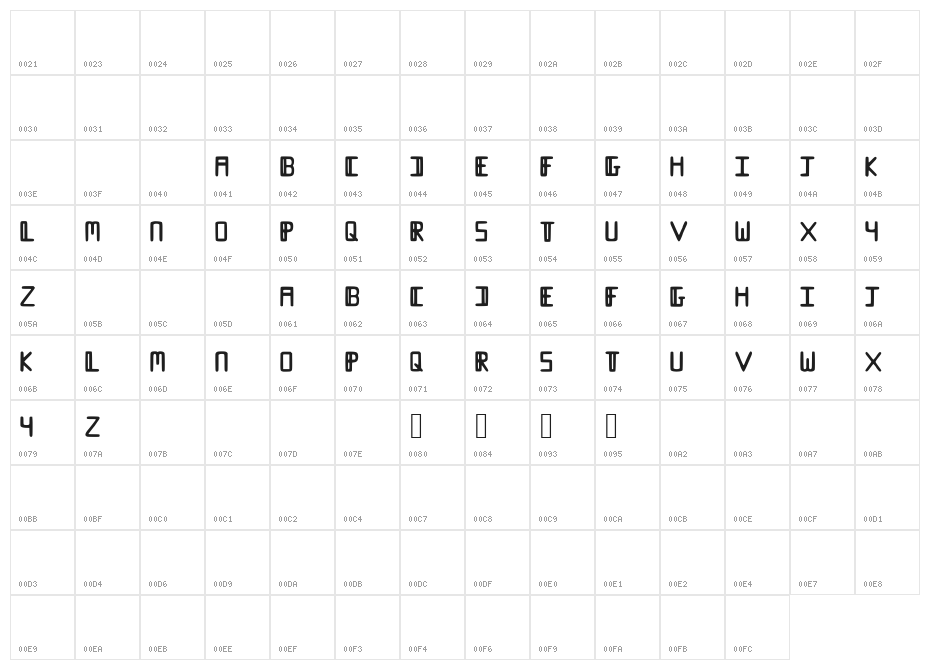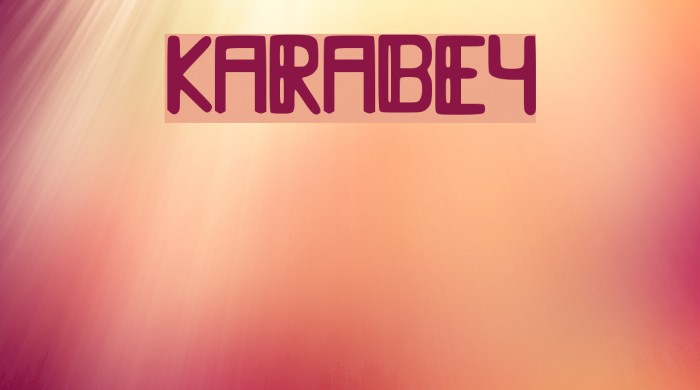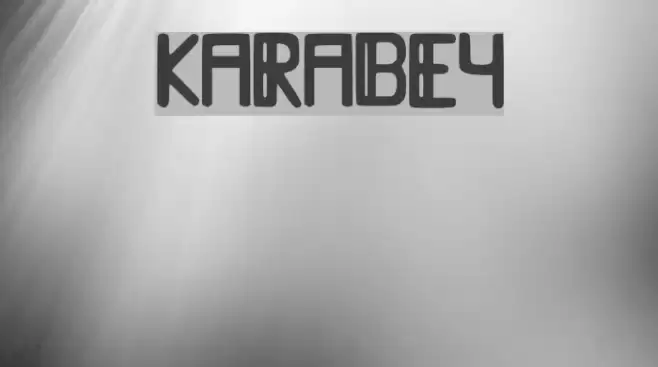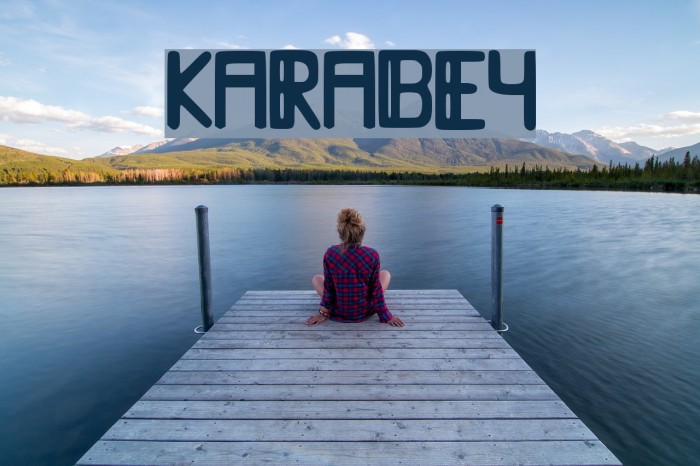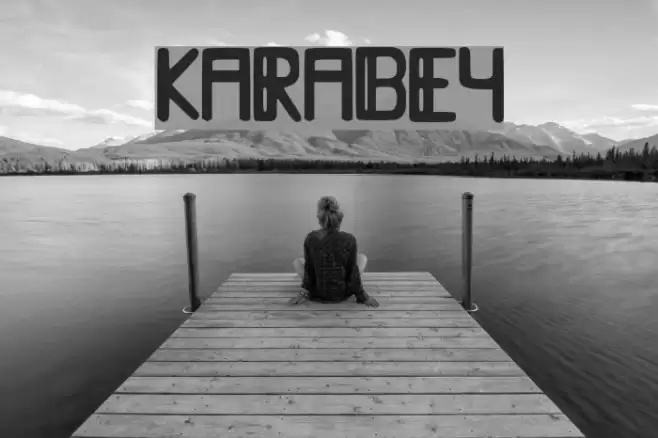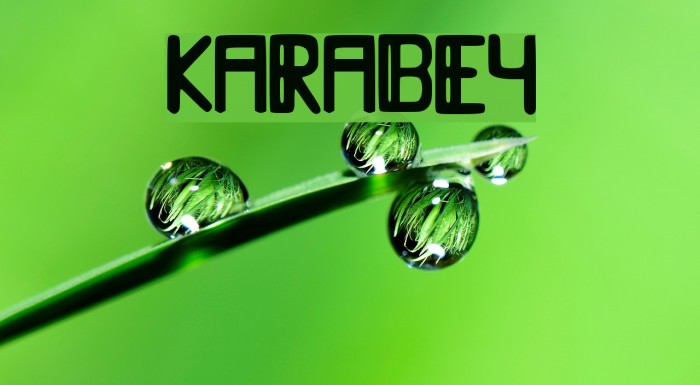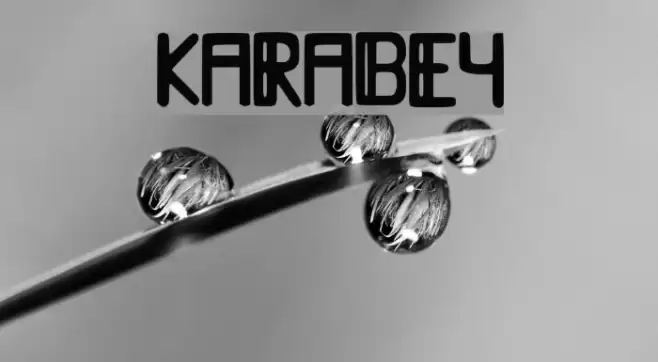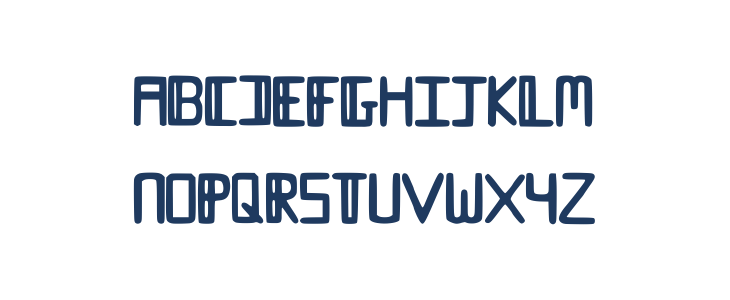
Karabey Font
Karabey Description
This font features a unique and modern design with rounded edges and a geometric structure. The characters are bold and have a consistent thickness throughout, giving them a strong presence. The uppercase letters exhibit a uniform height, while the lowercase letters maintain a similar width, creating a harmonious balance. The font's style is reminiscent of digital or futuristic themes, making it suitable for contemporary designs. The spacing between characters is normal, ensuring readability while maintaining its distinct style. Overall, this font is ideal for projects that require a modern and eye-catching appearance.
| Use Case | Headlines, Logos, Digital Media |
| Proposed Projects | Ideal for tech-related branding, digital media, futuristic posters, and modern web design. |